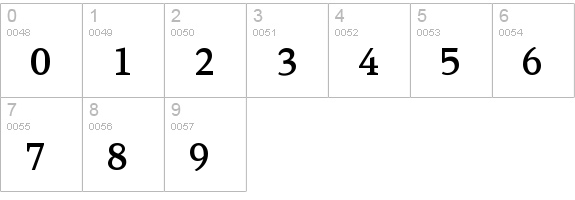
Kandal-Medium is a balanced, medium-weight variant in the Kandal typeface family \xE2\x80\x94 well suited to sub-headlines, navigation, and balanced editorial work.
Introducing Kandal-Medium, a versatile and contemporary font that exudes elegance and sophistication. This exquisite typeface is perfect for a wide range of design projects, from branding and advertising to editorial and digital media. With its clean lines and balanced proportions, Kandal-Medium captures attention and communicates with clarity. Its medium weight strikes the perfect balance between assertiveness and subtlety, making it ideal for both headings and body text. But what makes Kandal-Medium truly exceptional is that it is not only visually stunning, but also freely available to download at FontsMarket.com. Yes, you read that right – this remarkable font is absolutely free, allowing you to enhance your designs without any cost. Whether you are a professional designer or a passionate enthusiast, Kandal-Medium offers you the opportunity to elevate your creative projects to new heights. Its sleek and modern aesthetic will effortlessly elevate your designs, giving them a touch of sophistication that will captivate your audience. So why wait? Download Kandal-Medium today from FontsMarket.com and experience the power of this extraordinary font. Let your creativity soar and make a lasting impression with this exceptional typeface that is both visually stunning and free of charge.